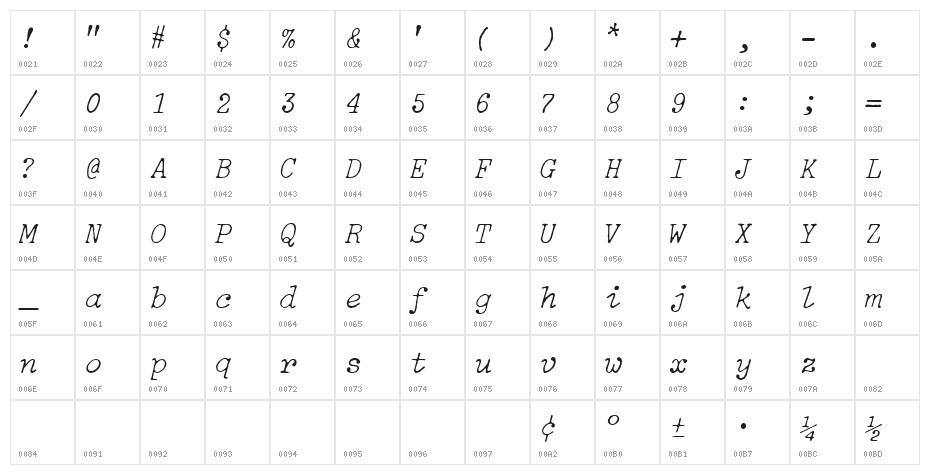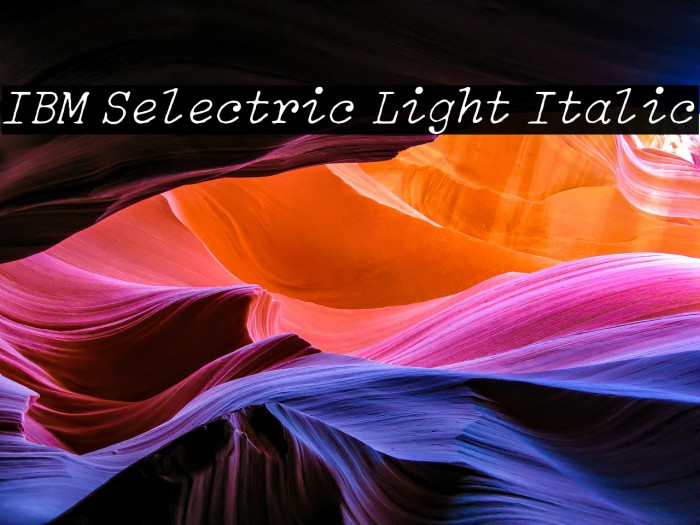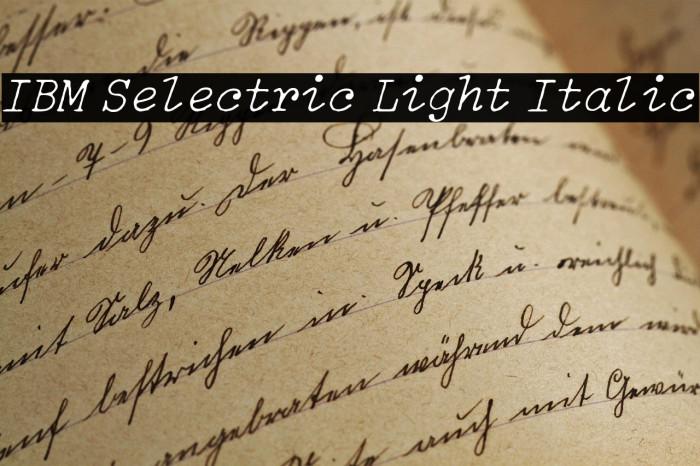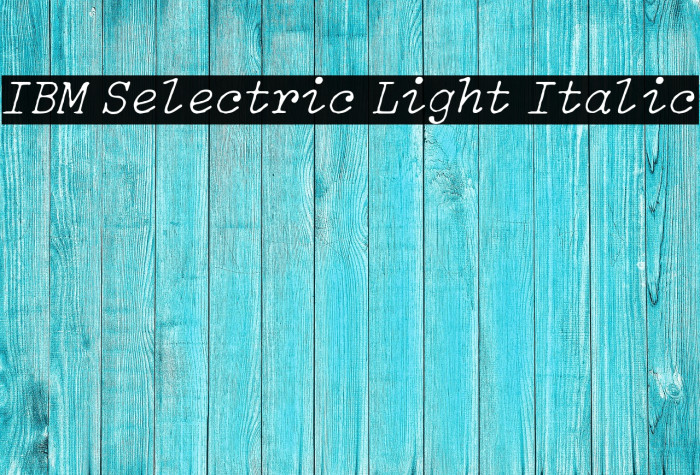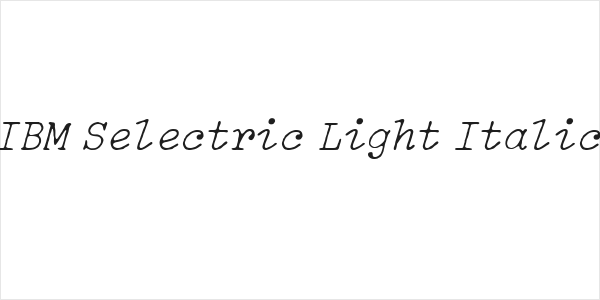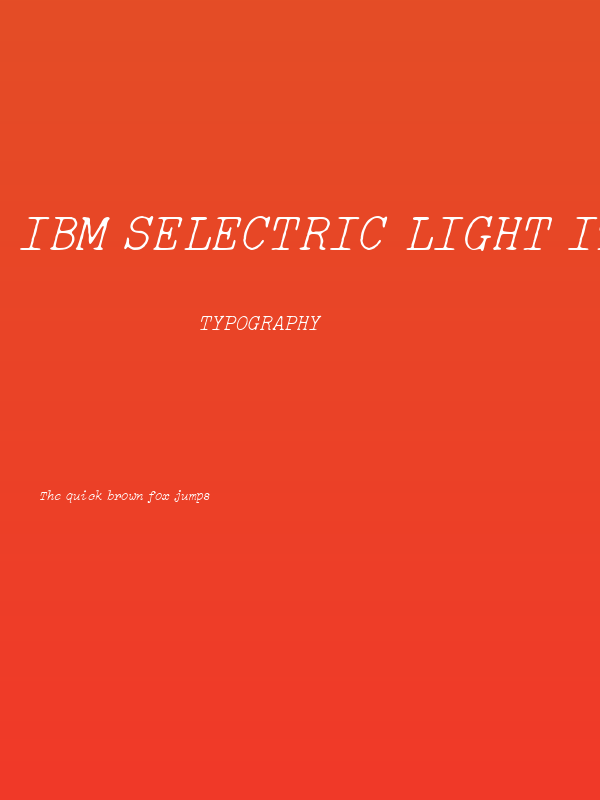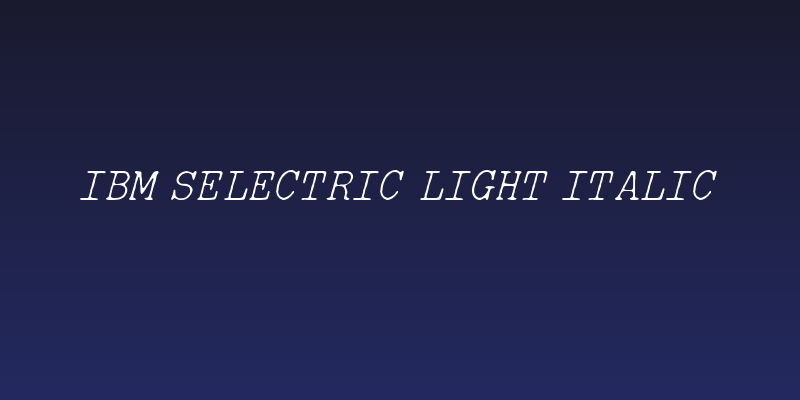
IBM Selectric Light Italic Font
IBM Selectric Light Italic Description
This font features a classic and elegant italic style with a light weight, giving it a sophisticated and refined appearance. The characters are slightly slanted, adding a sense of motion and fluidity. The strokes are consistent and smooth, with a medium contrast between thick and thin lines, enhancing readability while maintaining a stylish look. The spacing between characters is normal, ensuring clarity and legibility. This font is versatile, suitable for both formal and creative projects, and can be used effectively in various design contexts.